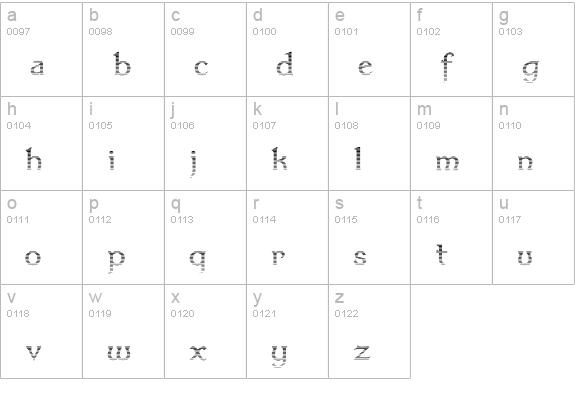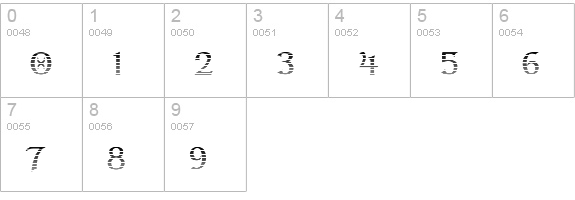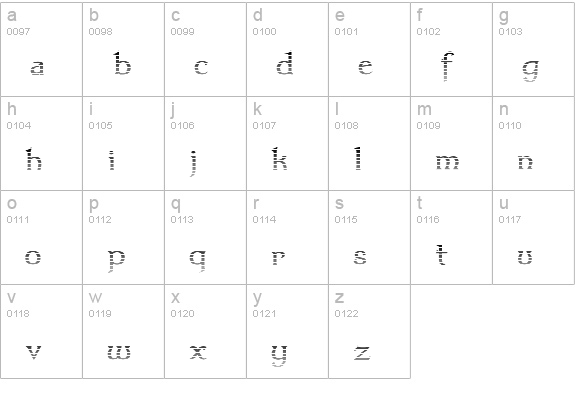
Dumbledor 3 Cut Up font is a unique and eye-catching display font that is sure to make your designs stand out. With its playful and whimsical cut-up style, this font adds a touch of fun and creativity to any project. Perfect for posters, headlines, logos, and more, Dumbledor 3 Cut Up font is versatile and easy to read. Best of all, Dumbledor 3 Cut Up font is completely free to download at FontsMarket.com. So whether you're a designer looking to add a little flair to your work or just someone who appreciates a good font, be sure to check out Dumbledor 3 Cut Up for your next project. Download it today and let your creativity soar!